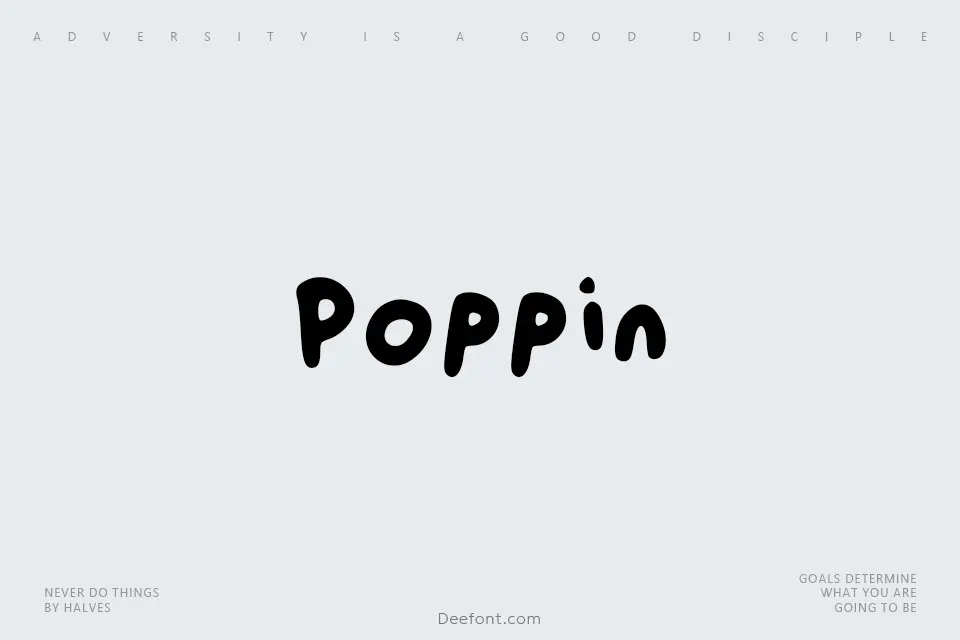
Poppin Font
Poppin is a dynamic handwritten script typeface that captures the raw energy of authentic hand-drawn lettering. With naturally flowing strokes, organic curves, and a distinctly casual personality, this font excels in creating eye-catching titles, bold poster designs, and branding applications that require a friendly, approachable aesthetic. Each character reflects genuine handwriting quirks, making it ideal for invitations, packaging, social media content, and any creative project seeking a warm, personal touch.